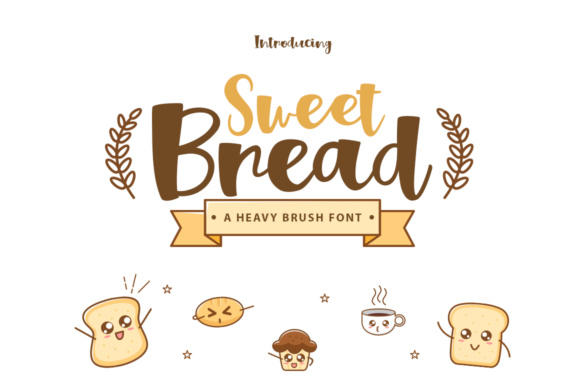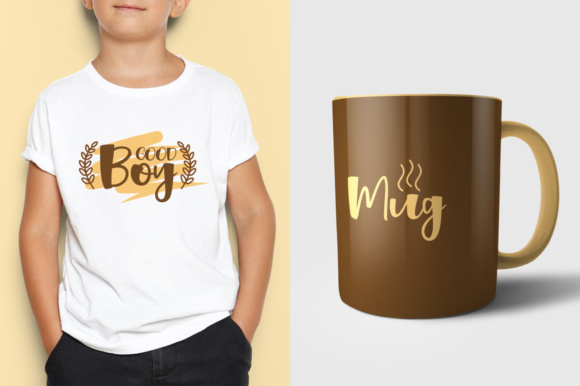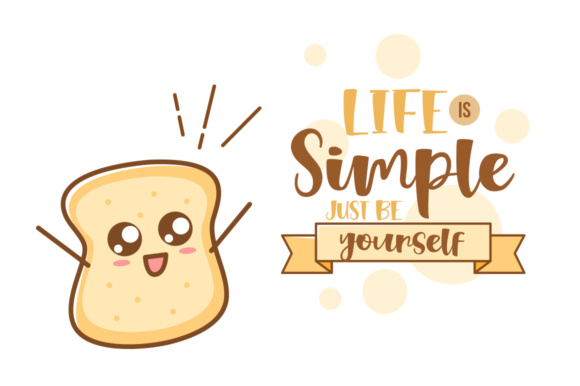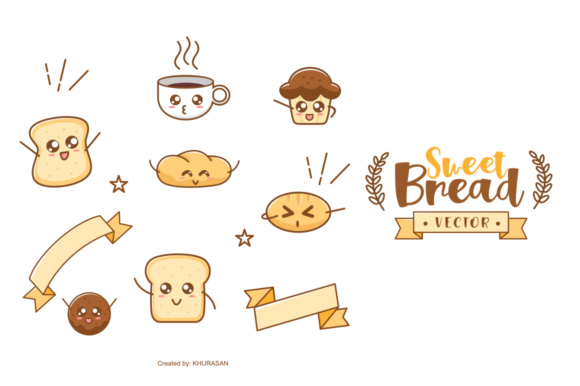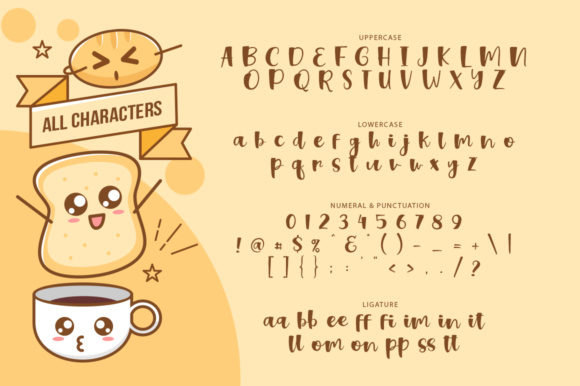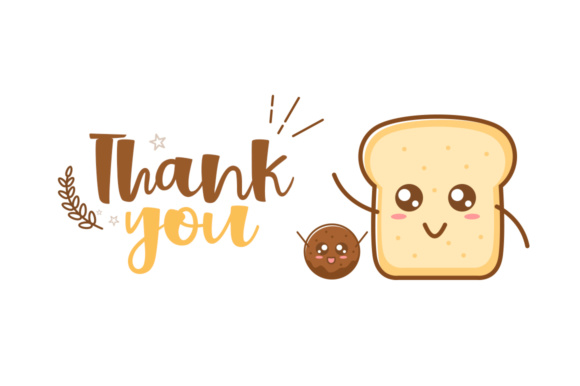
Sweet Bread Font
Sweet Bread is a beautiful and bouncy handwritten script font, ideal for use in cheerful projects and more. This font download comes with a ton of cutesy vectors so you can create a ton of fun and yummy projects!